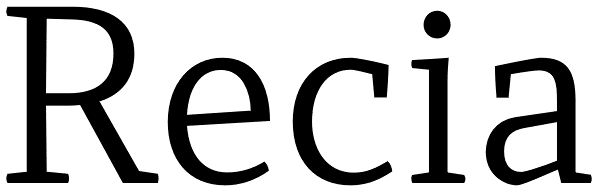
Recia
Recia is Carlos De Toro’s debut typeface with ITF. Recia is a contemporary-style serif. The family comes in 10 styles, and its five Italic fonts are ‘true-italic’ designs, which feature a cursive-structure in the letters. Its x-height is pretty high...